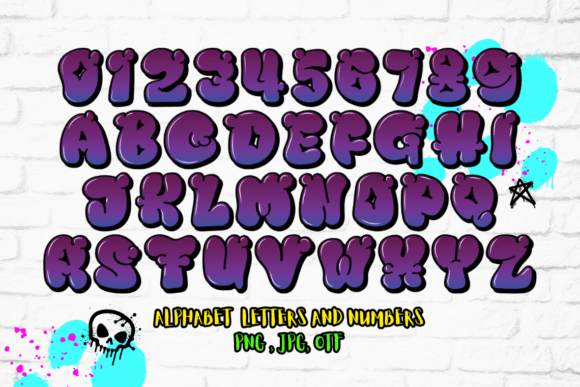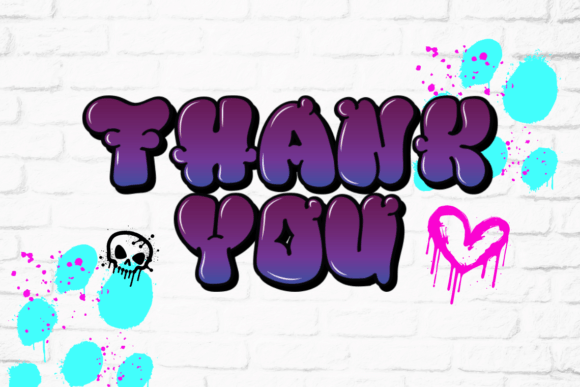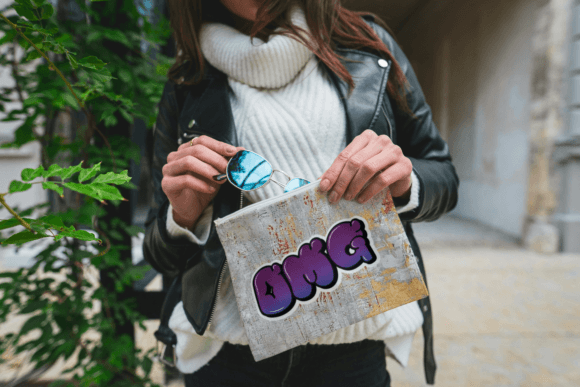
Introduction to Danger Street Graffiti Font
Introducing Danger Street Graffiti Color font.
Infused with a handwritten charm and adorned with captivating alphabet street graphics, this font is your ultimate companion for adding an edgy urban vibe to your designs Whether you seek inspiration, celebrate special moments, or dive into holiday festivities, Danger Street Graffiti Color font is here to ignite your creativity.
Key Features of Danger Street Graffiti Font
Why Choose Danger Street Graffiti Font?
Danger Street Graffiti Font offers exceptional quality and versatility, making it a valuable addition to your design toolkit. Whether you’re creating for personal projects or commercial use, Danger Street Graffiti Font delivers professional results.